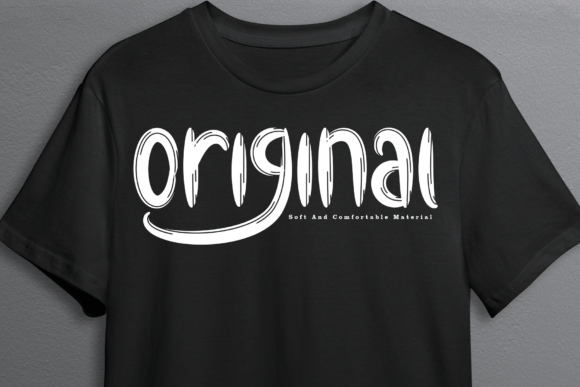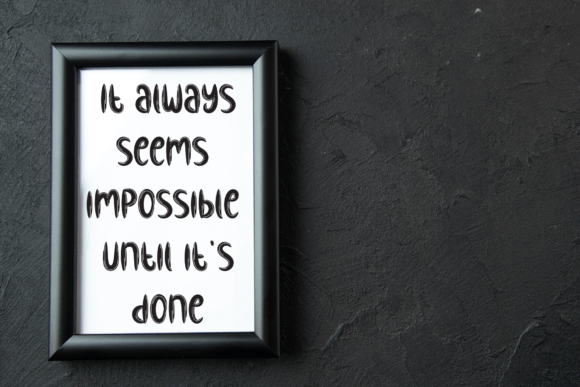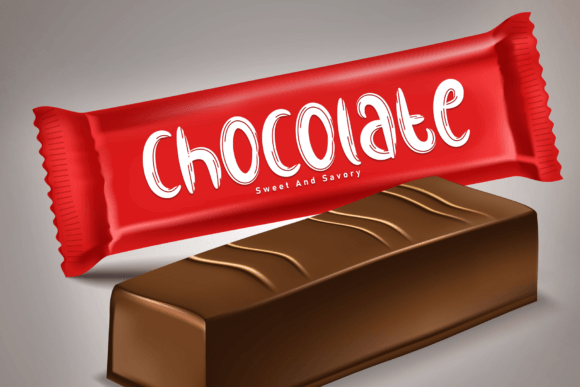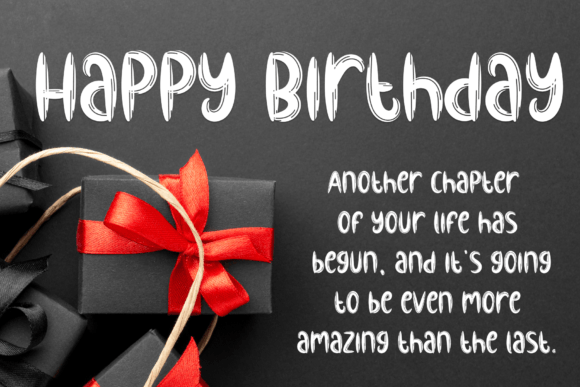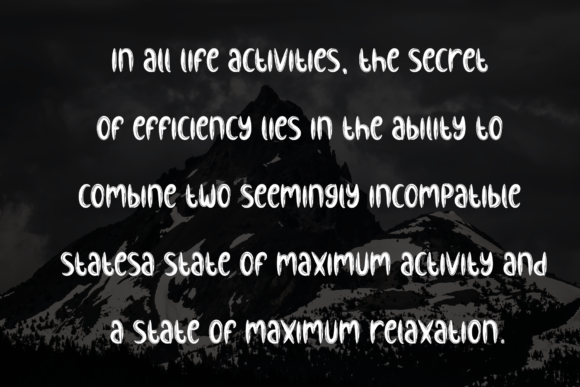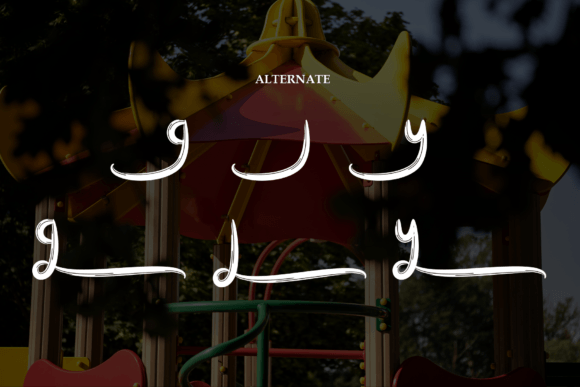
Introduction to Play Handwritten Font
Have you ever found yourself scribbling down a playful note on a sticky note, or jotting down a quick reminder in a colorful notebook? That’s the magic of handwritten fonts – they bring a touch of personality and whimsy to our creative projects. In this article, we’ll delve into the world of Play Handwritten Font, a charming display font that’s perfect for adding a dash of fun to your designs.
Key Features of Play Handwritten Font
- Unique, high-quality handwriting font perfect for creative projects and design resources.
- Perfect for use in creative projects, such as posters, invitations, and digital art, where a handwritten touch is desired.
Honest Review: Play Handwritten Font
What works well about the Play Handwritten Font is its versatility. ✨ It can be used for both digital and print designs, and its transparent background makes it easy to place over any image or background. The font is also highly customizable, allowing you to adjust the size, color, and style to fit your design needs.
- High quality
- Customizable
However, there are some limitations to consider. ⚠️ The font may not be suitable for small text sizes, as it can become difficult to read. Additionally, the font’s unique style may not be to everyone’s taste.
Play Handwritten Font is commonly used in various design projects, including:
- Birthday cards and party invitations
- Food and restaurant menus
- Brand logos and branding materials